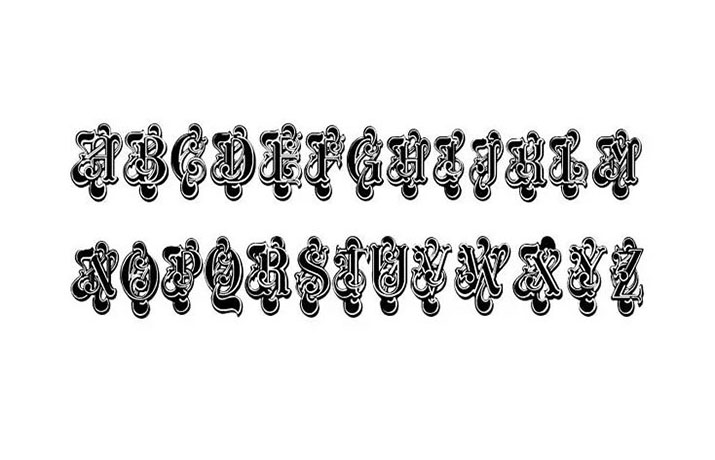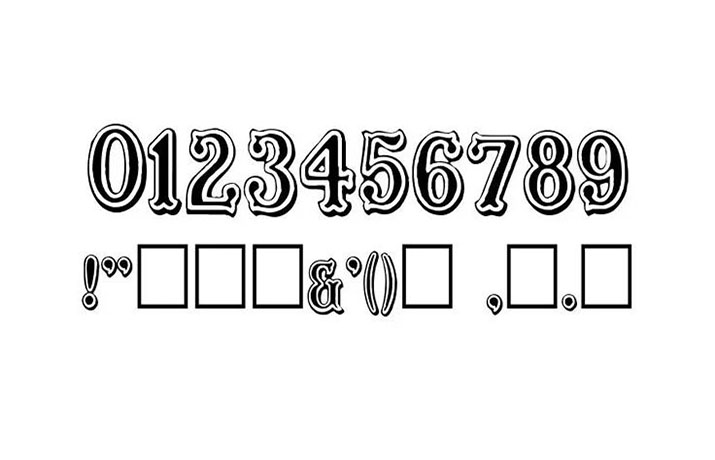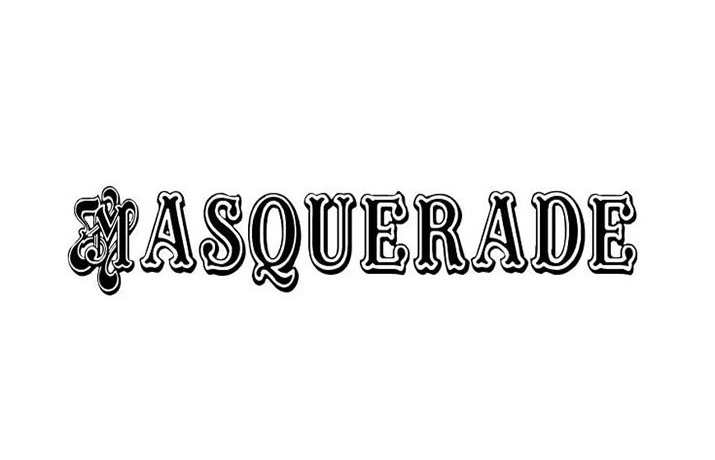
Masquerade Font is a decorative typeface that has feathers, masks, and swirling patterns. It was designed and published by Martin Wait.
All its texture has been made with extra bold strokes in which the designer has added rounded curves. That’s why you will observe that it has a glamorous, theatrical feel, with elements like feathers, masks, and swirling patterns.
And help designers create something unique that no other typeface can. Due to its cleanliness, it can easily be used with others such as in basic designs and stylish designs.
“Masquerade typeface comes in a single regular style with Truetype features. This font includes 82 glyphs, numbers, symbols, some punctuation marks, and 483 binary stored kerning pairs. Moreover, It also supports 34 languages.”
Masquerade Font (Details)
| Font Name: | Masquerade Font Family |
| Style: | Decorative, Various, Display |
| Font Designer: | Martin Wait |
- Check it out for a poster with a Gothic feel, a horror movie poster, titles, branding, logo designs, flyers, brochures, signs, banners, advertisements, book or album covers, special event cards, movie posters, album covers, product designs, special event cards, product packaging, and social media banners.
- This font you can use with other gothic fonts like Chrome Hearts Font by Dieter Steffmann and Cenobyte Font by Chad Savage.